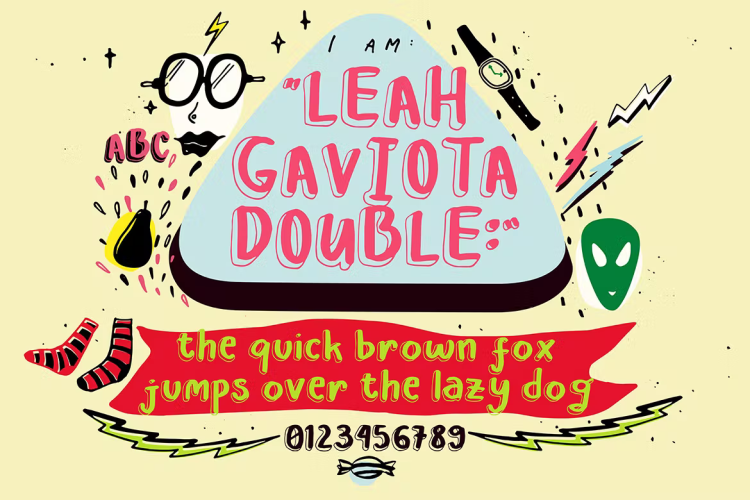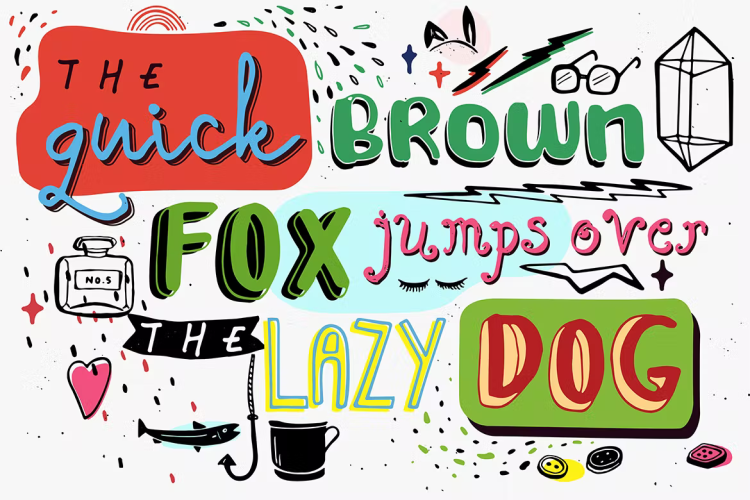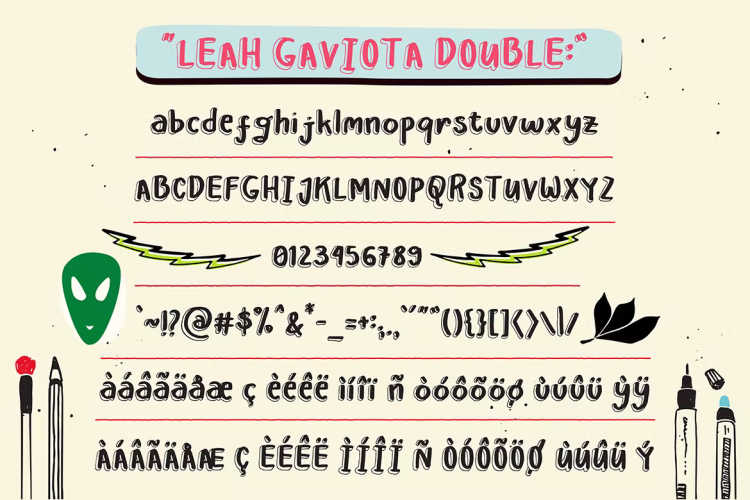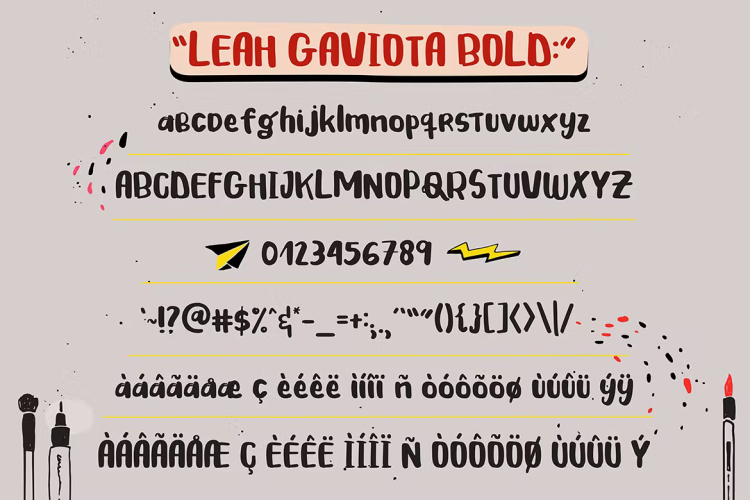
Leah Gaviota Font
Leah Gaviota is a mix of multiple type of font: script, bold, outline, serif & sans-serif, that you can use to create a casual, artisan work.
With its 6 different look, Leah Gaviota family is best for your signature, greeting card title, badge and sticker, logo and return address, web design & text, some cover design and so forth, you decide!
Leah Gaviota comes with accented glyphs for international language (check preview images to see which glyphs are included). And to make your artwork even cooler, all those mini illustrations in the preview images are included! There are 100+ icons you can mix & match to your design.
Reports, white papers and book interiors hold the eye longer when the text face has real serifs; Leah Gaviota Font keeps that rhythm without looking old-fashioned.
Food, spirits and cosmetics brands lean on serif wordmarks to suggest age and care. Leah Gaviota Font gives that signal at wordmark size.
Set Leah Gaviota Font for the body of an award or a diploma and keep the recipient name in a script; the pairing is what makes a document feel official.
It sits in the Serif Fonts group and reads as bold, branding, script, serif. That makes it a candidate wherever those qualities help: headings, packaging, social graphics and brand work. Set it at the size you plan to use before deciding.